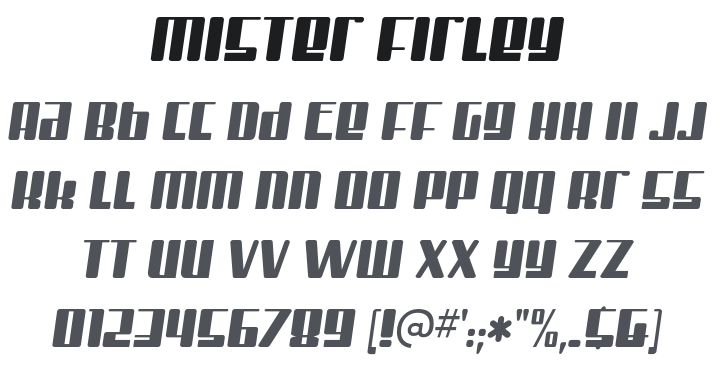
Mister Firley Font
About Mister Firley
Mister Firley is a bold, semi-condensed italic techno display typeface in the modern industrial style — peculiar, angular letterforms with a distinctly Y2K flavor that feel like they belong on a high-security facility or a sci-fi action movie title card. Its aggressive slant gives it relentless forward momentum. Perfect for cyberpunk branding, action game titles, tech posters, industrial-themed designs, and any headline that needs to shout with mechanical authority.